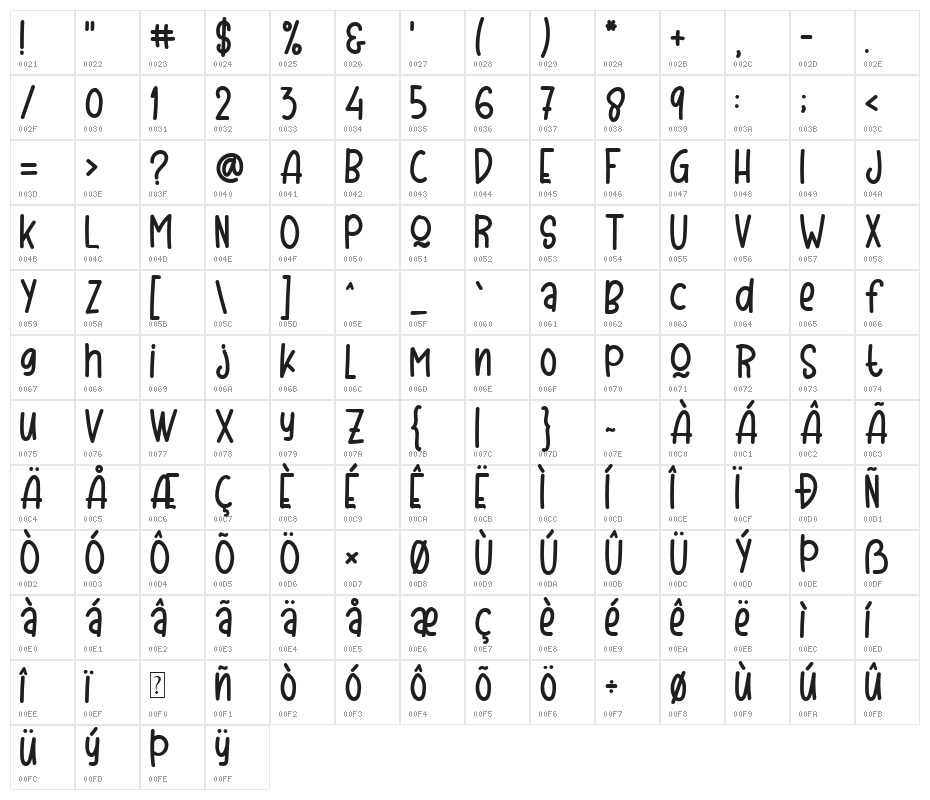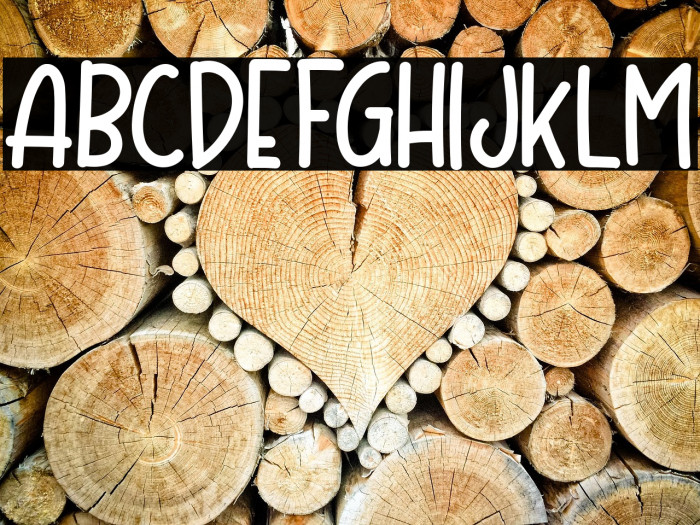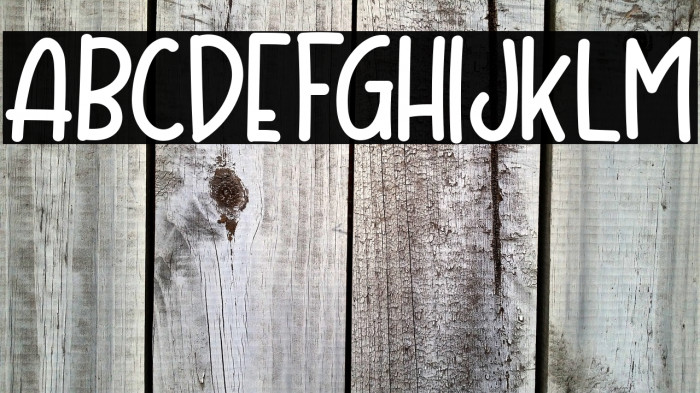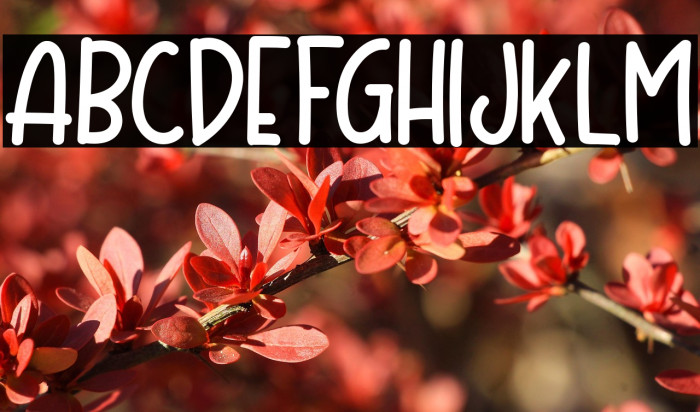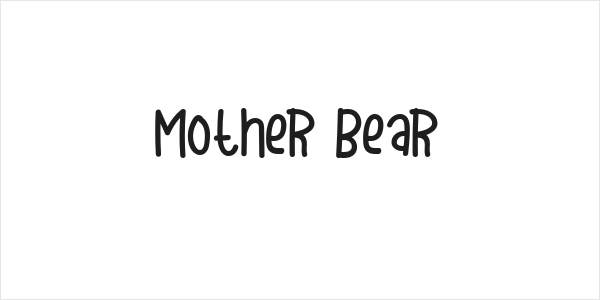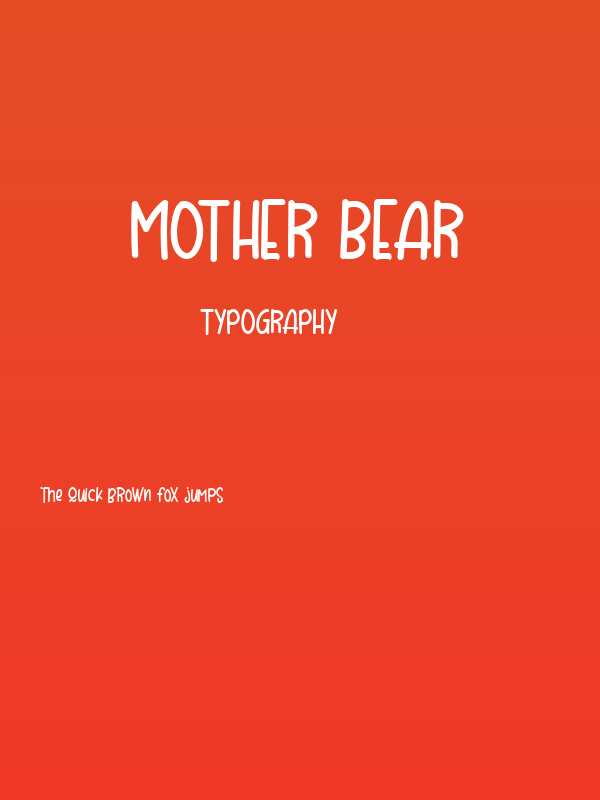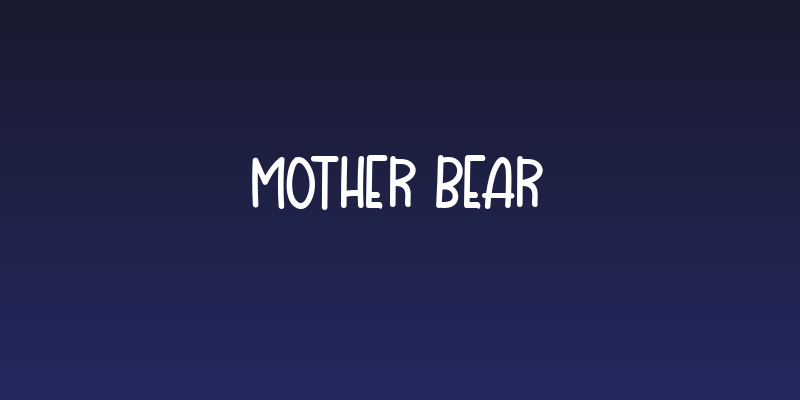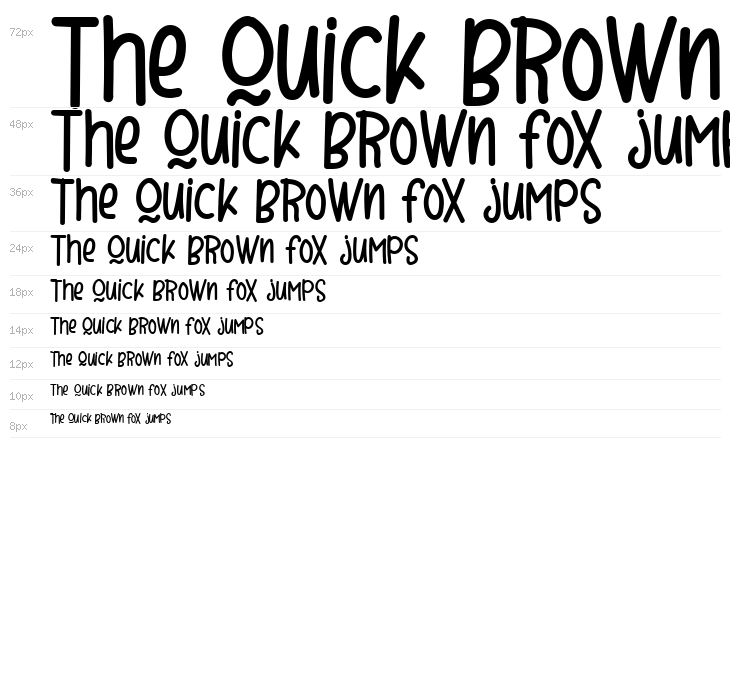
Mother Bear Font
Mother Bear Description
This playful and whimsical font features rounded, hand-drawn characters that exude a friendly and approachable vibe. The uppercase and lowercase letters maintain a consistent style, with smooth curves and a slightly irregular baseline that adds to its charm. The numerals and special characters are equally engaging, making this font versatile for various creative projects. Its informal style is perfect for designs that aim to be fun and inviting, such as children's books, party invitations, or playful branding. The font's overall appearance is bold and eye-catching, ensuring it stands out in any design context.